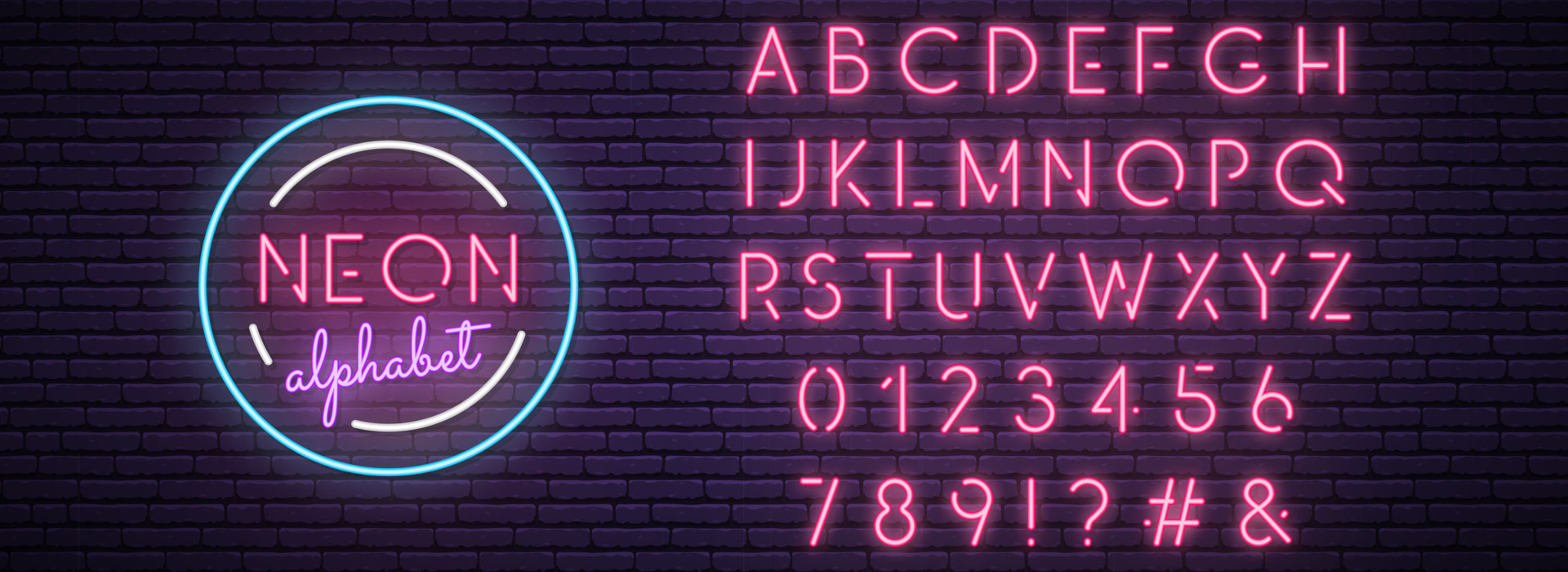
Neon alphabet letters numbers, Glow Pink Futuristic Illuminated Font, Urban Electric Neon Lights, EPS File
Bright neon letters and numbers are illuminated against a dark brick backdrop.
The colorful design presents a modern and stylish aesthetic suitable for creative projects or decor.